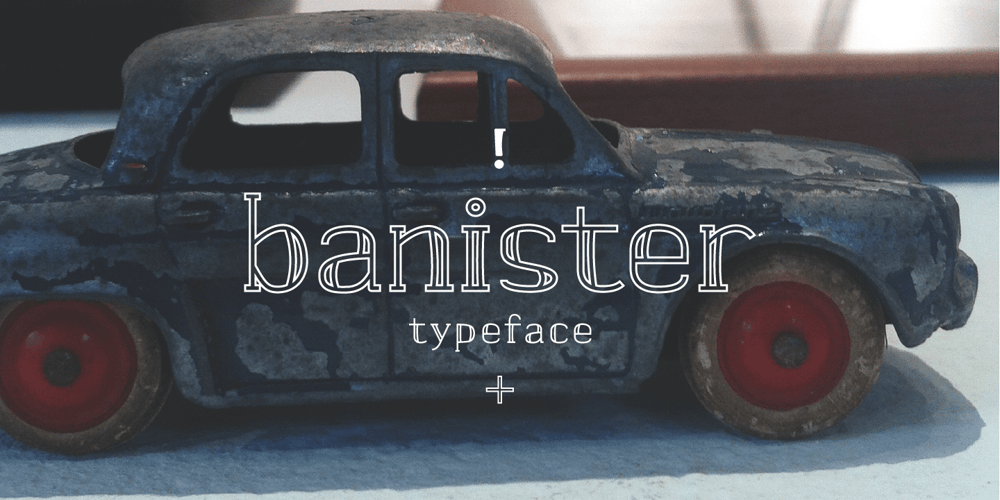
banister Font Family was designed by Motoki Higa and published by One Fonty Day. banister contains 12 styles and family package options. Banister looks both contemporary and vintage. It contains a total of 12 styles including two main styles (Normal and Loaded), and for each style it comes with two widths (Semi-condensed and Semi-Expanded) and three weights (Light, Regular and Bold). The 40’s inspired style is subtle in banister, so it comes across more contemporary. Also, slightly curved strokes can be found on some letters, which gives a more organic feeling overall. To gain full advantage of banister, you can toggle “Fill” and “Stroke” on any editable applications to experiment the style, also layering normal and loaded styles let you discover something unexpected. Banister is versatile, simple and organic looking typeface, and good for headlines, logos, tiles and any large texts.